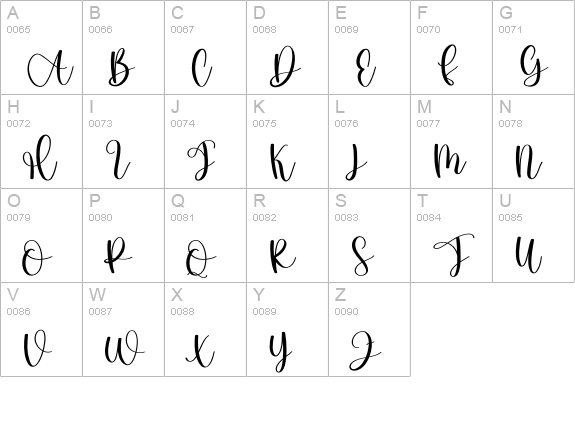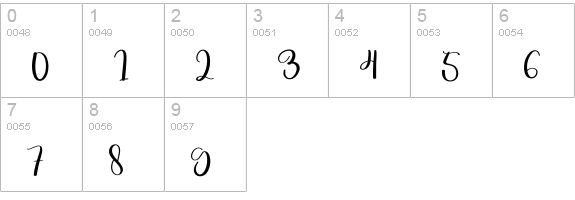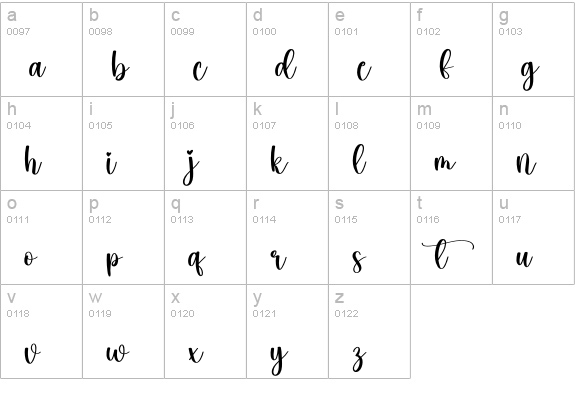
Hello Amellia is a free for personal use font in the Script > Handwritten category, designed by scratchones. It has been downloaded 47 times and is available for Windows, Mac and Linux.
Hello Amellia font is a stylish and elegant typeface that exudes a sense of sophistication and charm. With its smooth curves and unique letterforms, Hello Amellia is perfect for adding a touch of class to your designs. This versatile font is suitable for a wide range of projects, from branding to invitations to social media graphics.